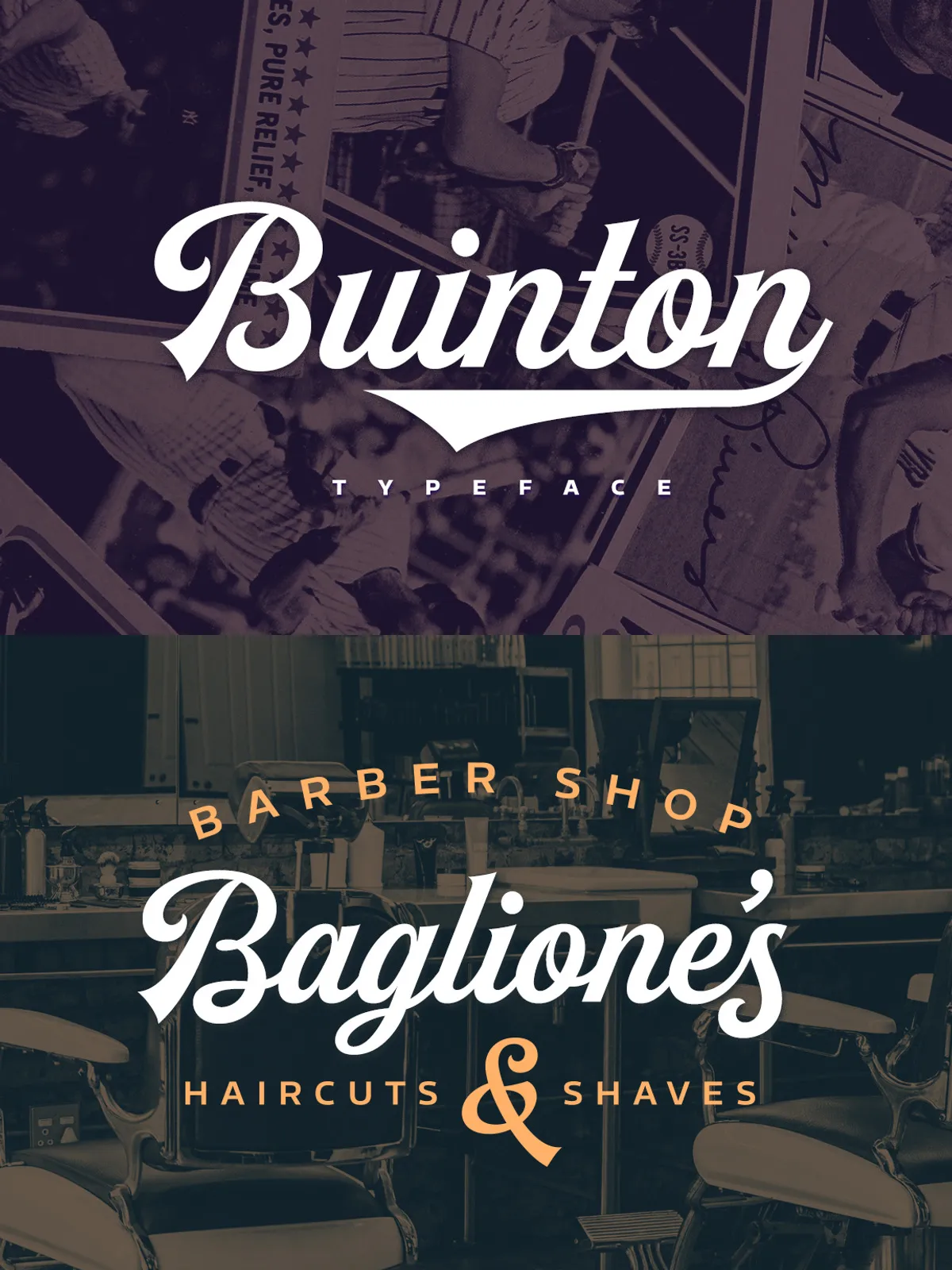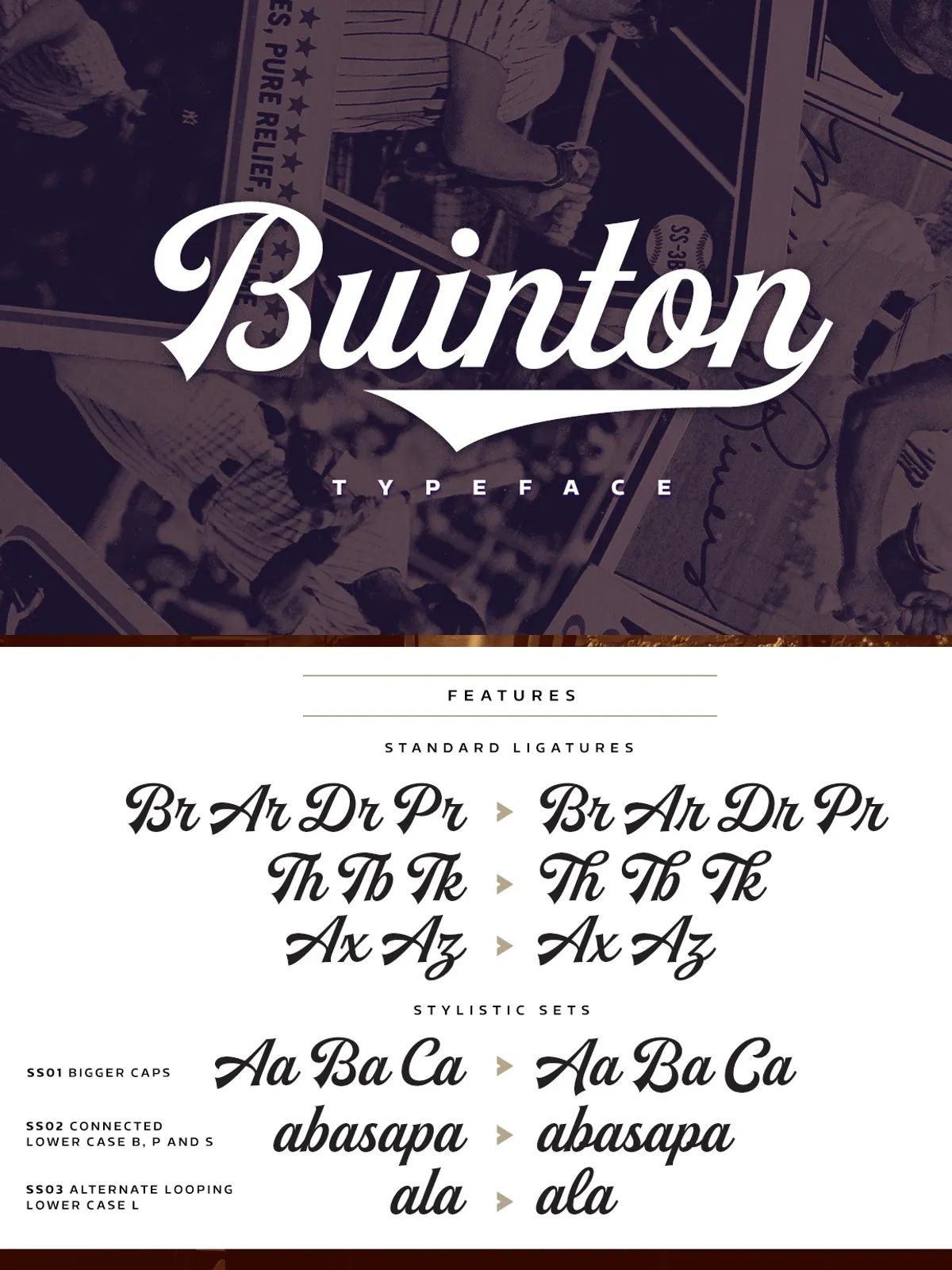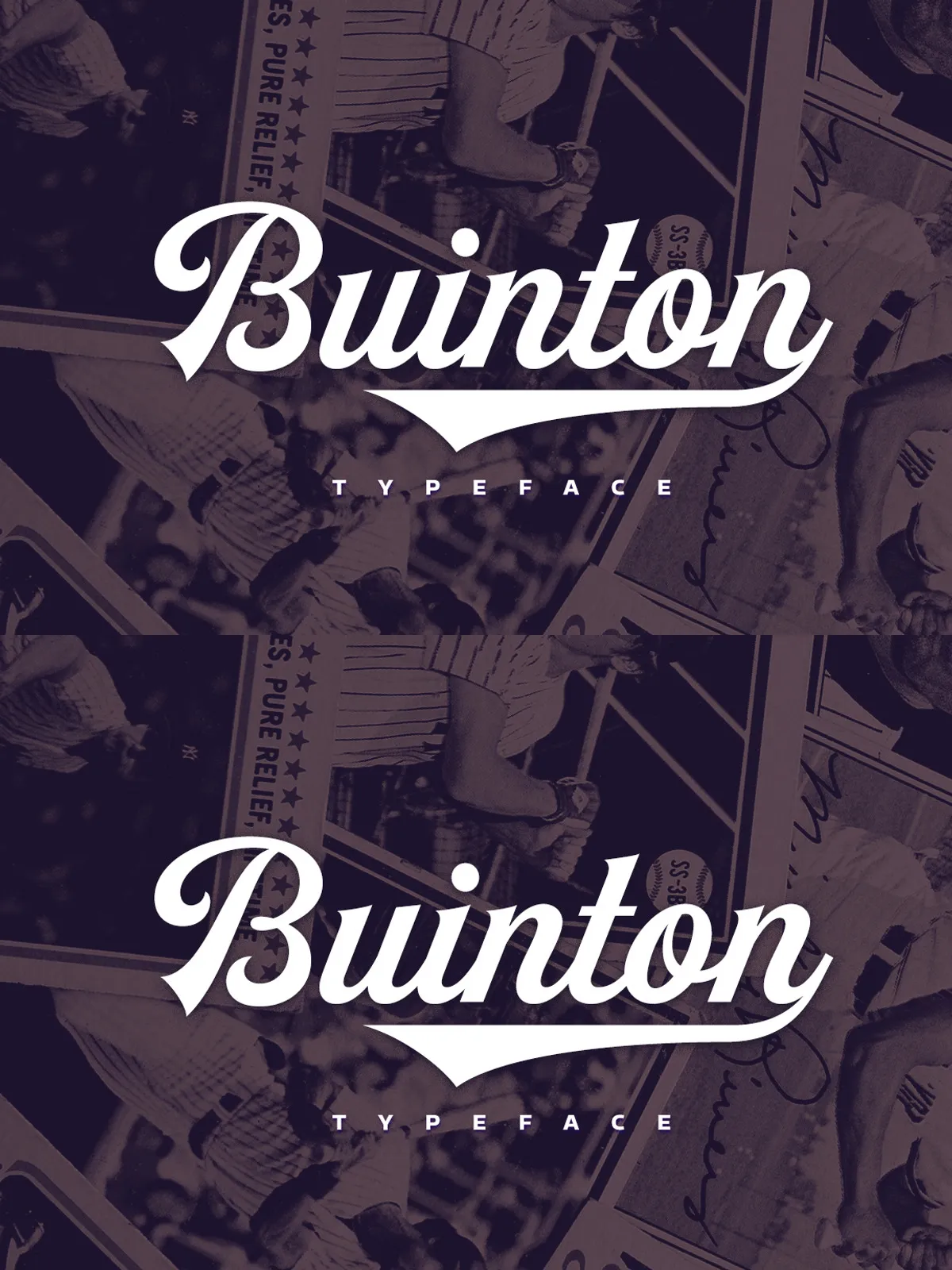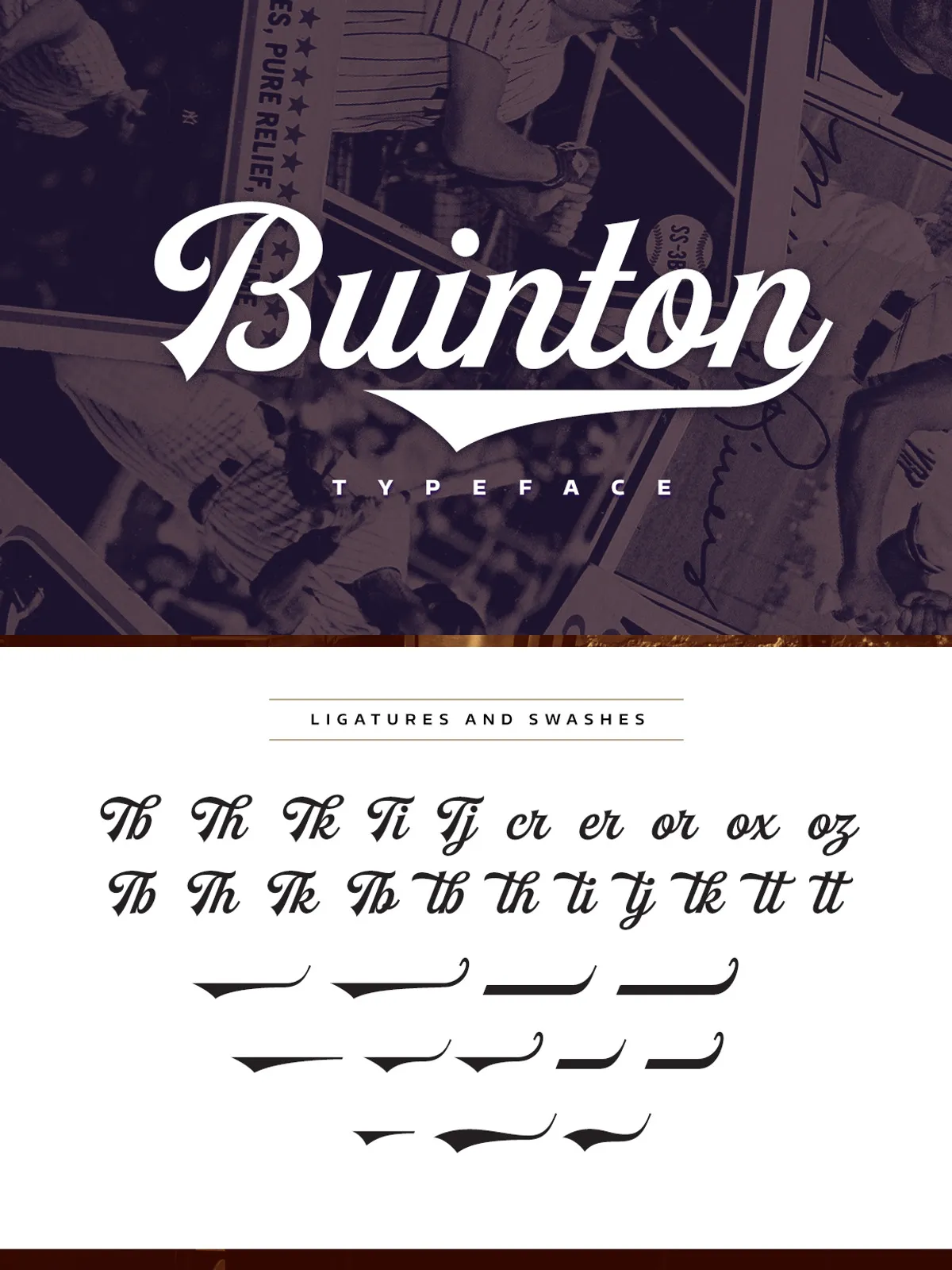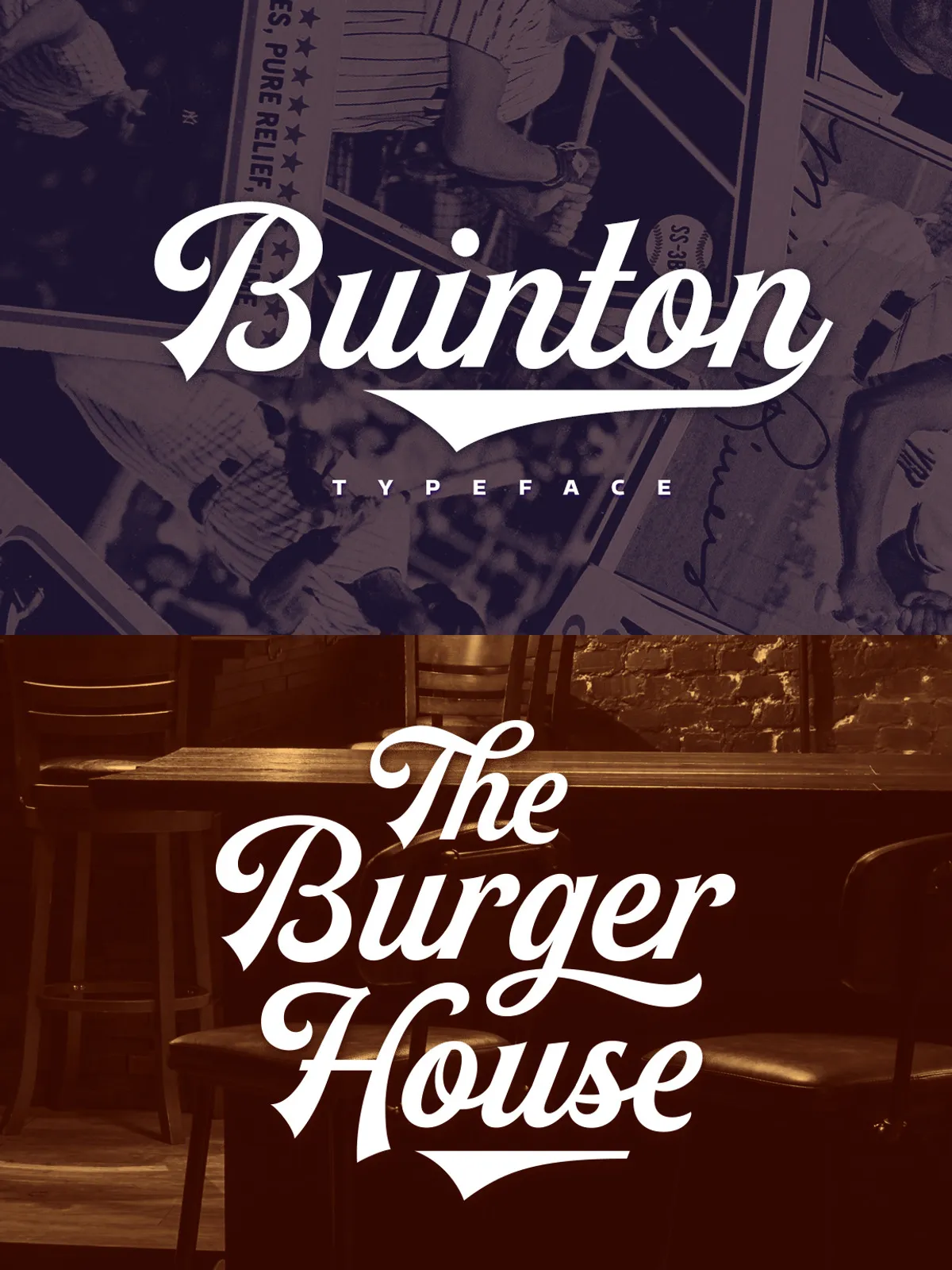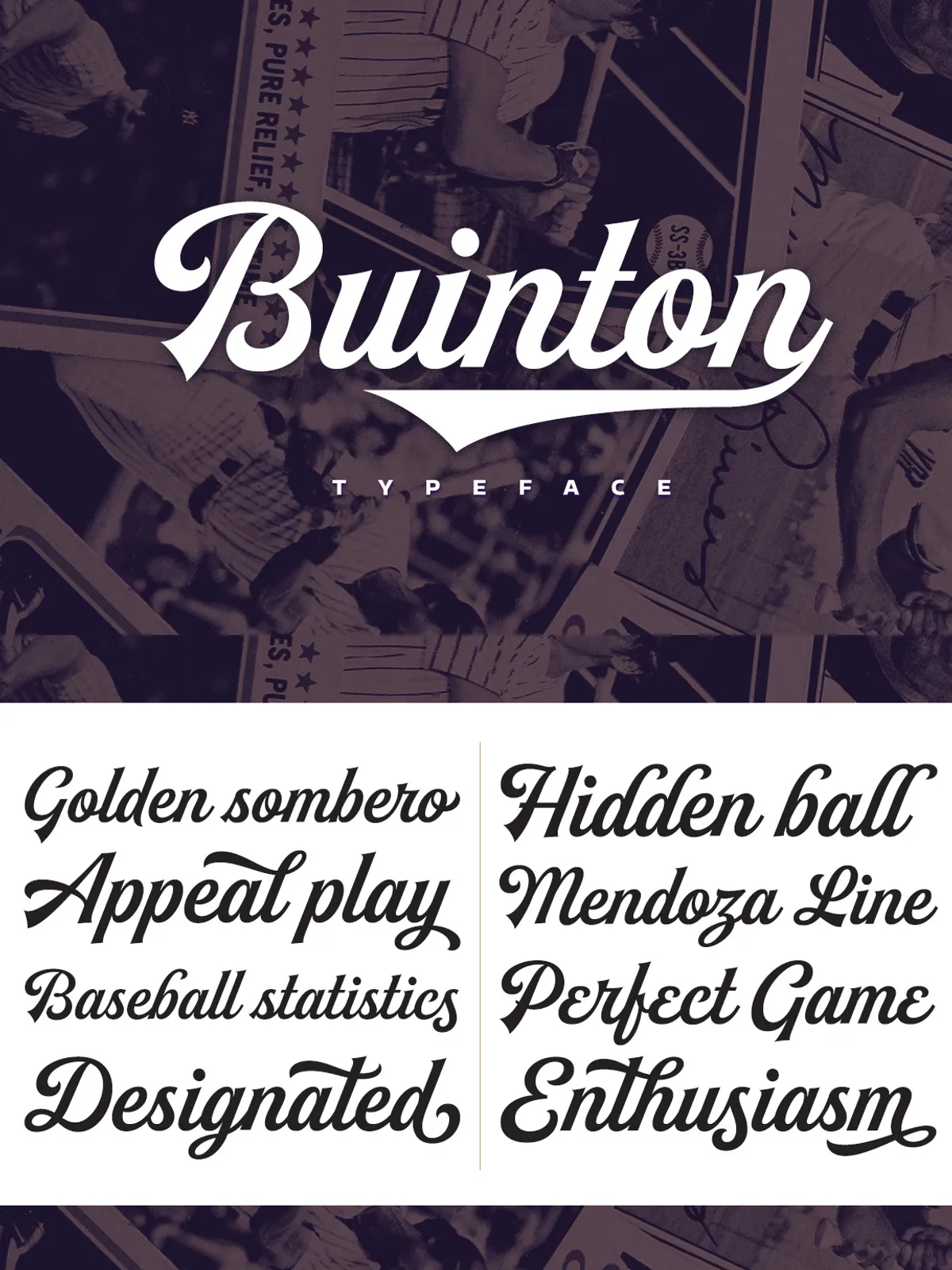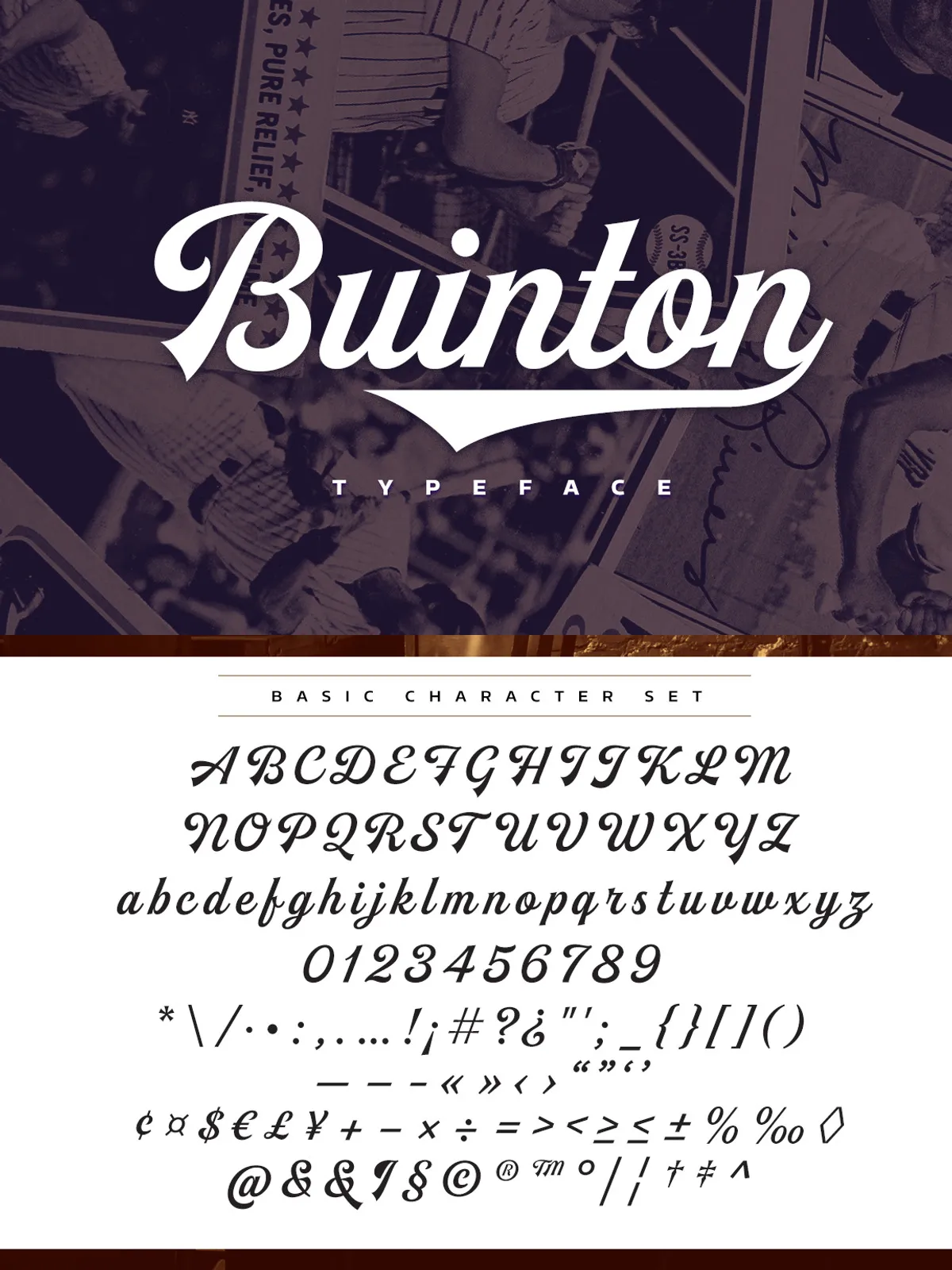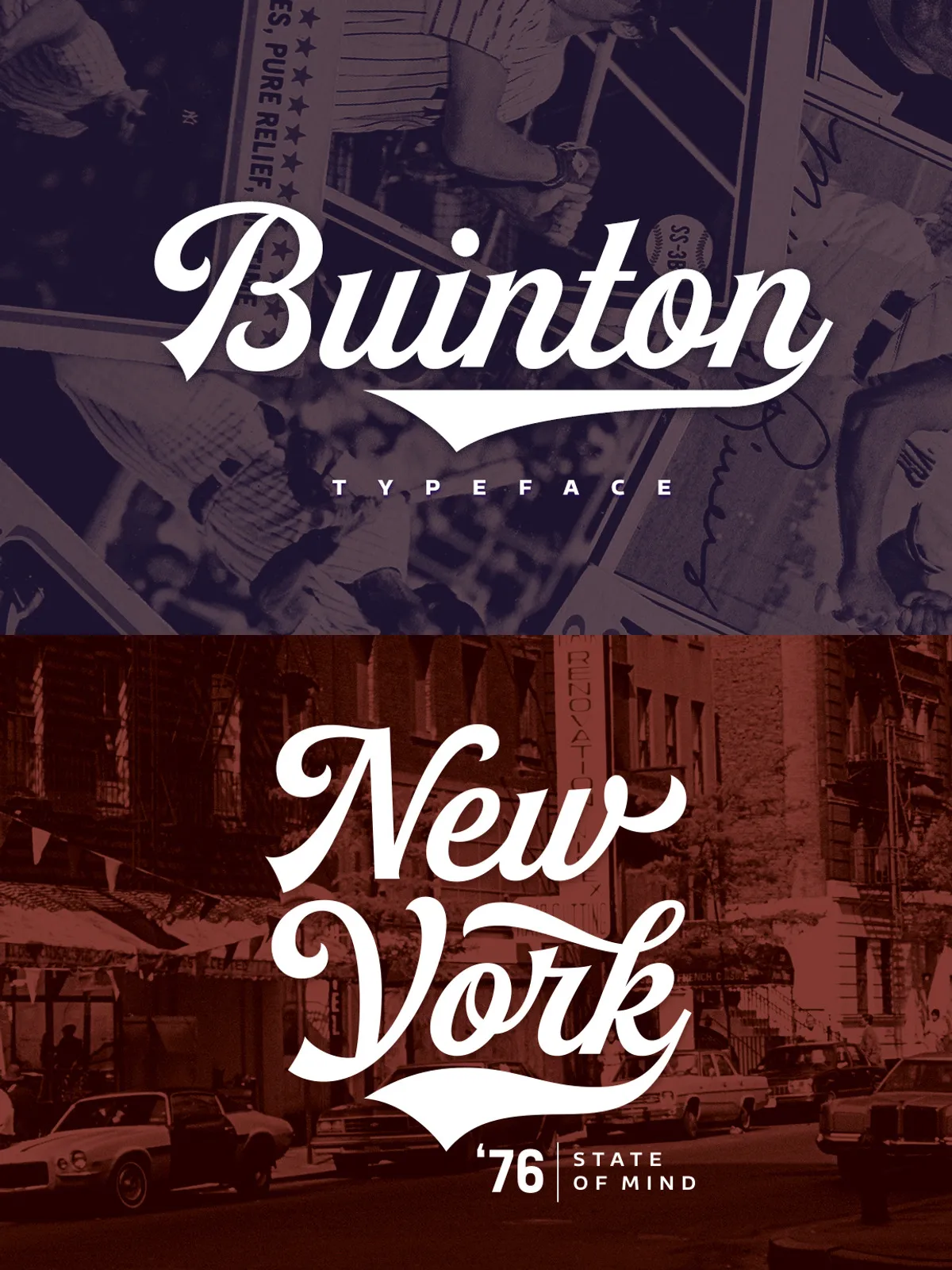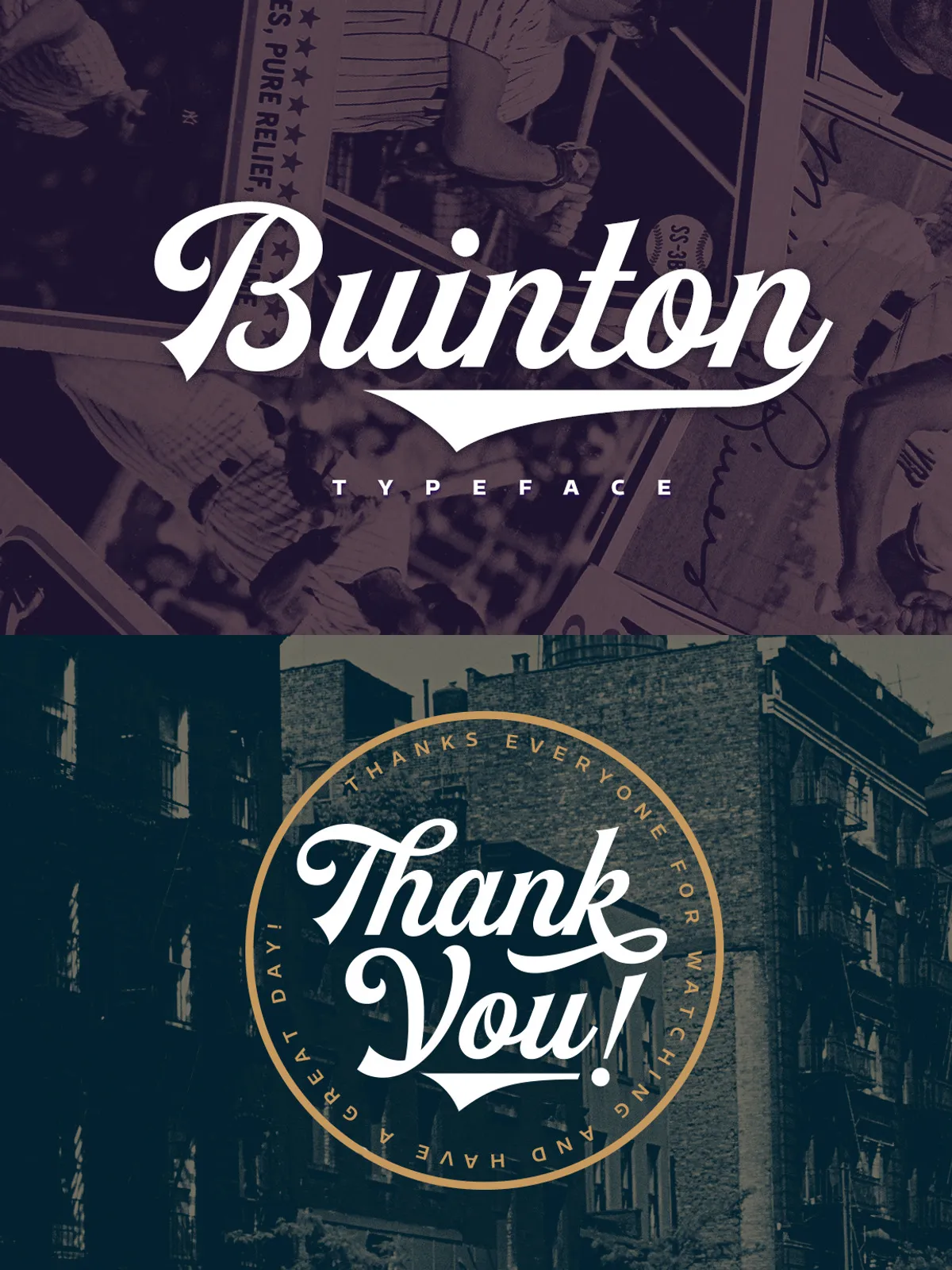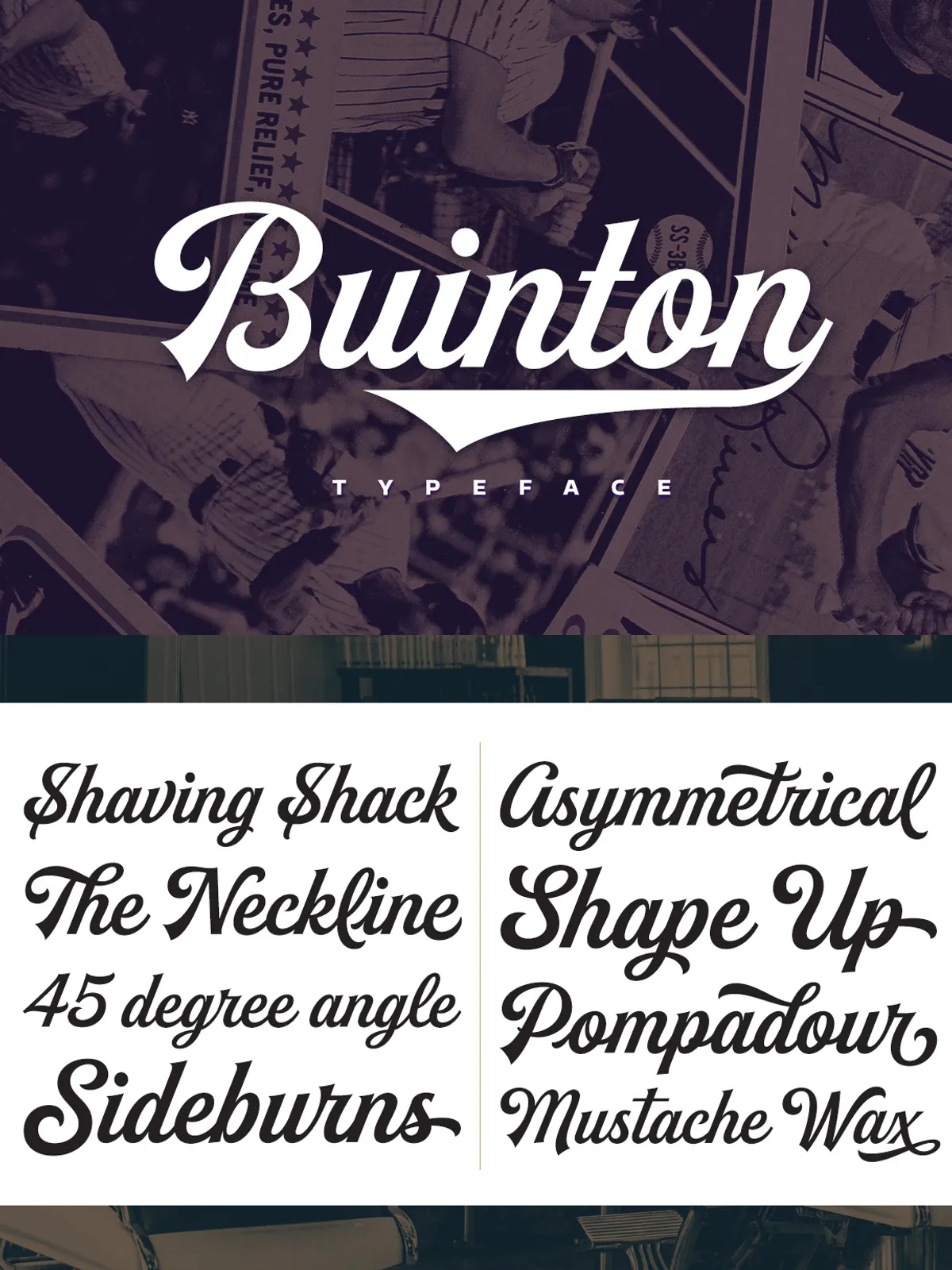
Elevate every design project with Buinton, a script typeface that blends noble vintage charm with contemporary flexibility. Crafted for high‑impact branding, this font brings sophisticated serifs, expressive swash capitals, and an arsenal of alternates that empower designers to create striking typographic statements.
Why Buinton Stands Out
Unlike generic scripts, Buinton offers a distinctive visual language:
- Serif‑Enhanced Strokes: Every character begins with subtle serifs, adding a refined, handcrafted feel.
- Swash Capitals: Bold, sweeping capitals command attention in headlines, logos, and badge designs.
- Rich Alternate Library: More than a dozen alternate characters, varied tails, and decorative swashes let you tailor each glyph to the mood of your project.
- Integrated Ligatures: Seamlessly connect letters for fluid, handwritten‑style flow, reducing visual gaps and enhancing readability.
Key Features at a Glance
- Extensive set of alternate characters and decorative swashes.
- Multiple tail styles with differing widths and shapes.
- Full OpenType support for contextual alternates and ligatures.
Creative Applications Where Buinton Shines
Buinton’s versatility makes it a go‑to choice across a broad spectrum of design disciplines.
Logo & Brand Identity
Use the swash capitals and alternate tails to craft memorable logotypes that convey heritage, luxury, or sporty vigor. The vintage aesthetic instantly differentiates brands in crowded markets.
Apparel & Merchandise
Print bold, expressive lettering on t‑shirts, hoodies, and caps. The font’s varied alternates allow each design to feel unique, turning simple apparel into collectible pieces.
Editorial & Illustration
Integrate Buinton into magazine spreads, book covers, and editorial illustrations. Its decorative elements add visual rhythm, guiding readers’ eyes through complex layouts.
Sports & Event Branding
Leverage the dynamic tails and swash details to evoke movement and energy—perfect for team logos, event posters, and ticket designs.
Design Tips to Maximize Impact
- Choose Alternates Deliberately: Select 2–3 alternates per word to maintain visual harmony while showcasing variety.
- Pair with Clean Sans‑Serif Body Text: Let Buinton dominate headlines, while a neutral sans‑serif carries body copy for readability.
- Emphasize Swash Capitals in Logos: Position the capital at the beginning of the brand name, using a larger size to create a focal point.
- Limit Length in Paragraphs: Buinton is best suited for short phrases, taglines, or decorative blocks—avoid setting long paragraphs in this script.
- Adjust Kerning for Tail Variations: Fine‑tune spacing between letters when using extended tails to ensure balanced composition.
A Typeface That Commands Attention
Buinton isn’t just a script; it’s a toolkit for designers who demand both elegance and adaptability. Its noble vintage roots, combined with a modern suite of alternates and ligatures, give you the power to sculpt typographic identities that stand out in any medium. Whether you’re crafting a luxury brand logo, a dynamic sports emblem, or a striking editorial cover, Buinton provides the expressive depth needed to make every letter count.